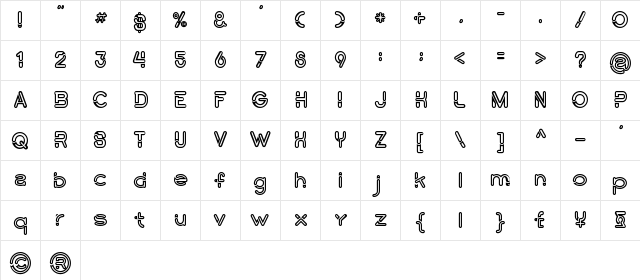
montana bold line Regular
| Foundry | cruzine |
| Designer | cruzine |
Design Context for montana bold line Typeface
montana bold line offers clean, dependable letterforms without strong stylistic allegiance, making it a practical choice for designers who need flexibility. Its bold stroke weight gives it real presence on the page.